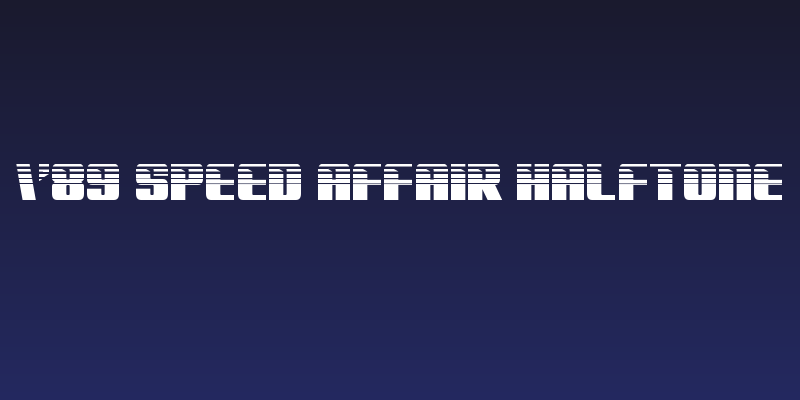
'89 Speed Affair Halftone Font
'89 Speed Affair Halftone Description
This font features a bold, geometric design with a distinct halftone effect that creates a sense of motion and speed. The characters are constructed with horizontal lines that give a dynamic, racing stripe appearance. The uppercase letters are uniform in height, while the lowercase letters maintain a consistent style, enhancing readability. The numerals and special characters follow the same design principles, ensuring a cohesive look across all glyphs. This font's unique style makes it stand out, ideal for projects that require a modern and energetic feel.
Proposed ProjectsIdeal for sports branding, automotive advertisements, video game titles, and dynamic poster designs.